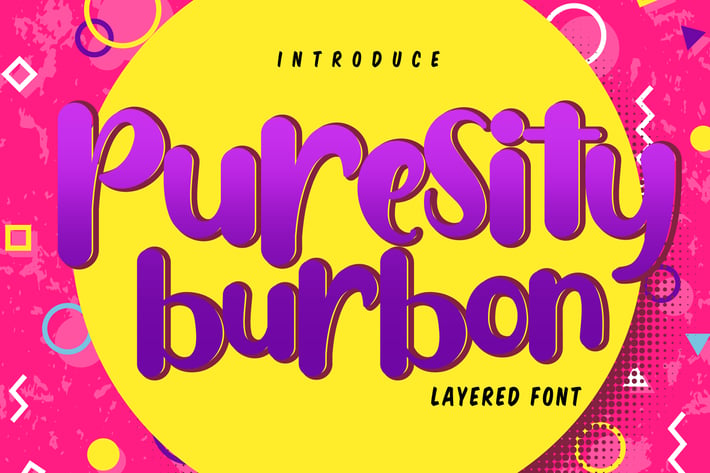
Puresity Burbon | Playful Layered Font
Puresity Burbon | Playful Layered Font with a calligraphy style, So beautiful on invitation like greeting cards, branding materials, business cards, quotes, posters, and more!